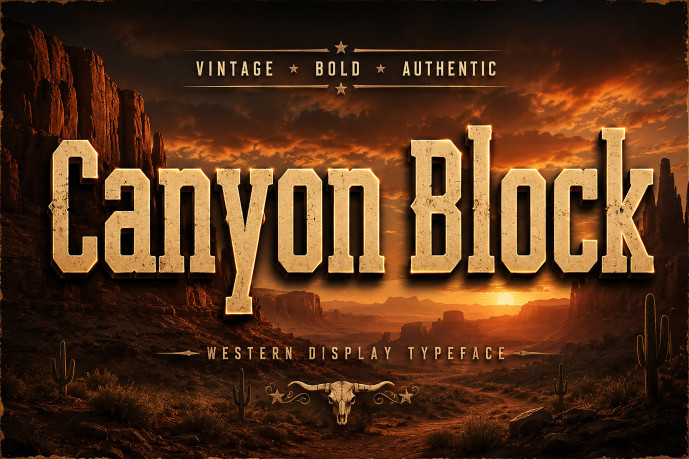
Capture the rugged spirit of the frontier with Canyon Block, an authentic western display typeface! Built with bold, tall blocky structures, sharp slab serifs, and subtle distressed textures, this font embodies the dramatic beauty and grit of classic americana and wild west legends.
Ideal for whiskey label designs, saloon signage, outdoor adventure branding, western movie posters, apparel graphics, and rustic logo design, Canyon Block makes a strong, unforgettable statement.